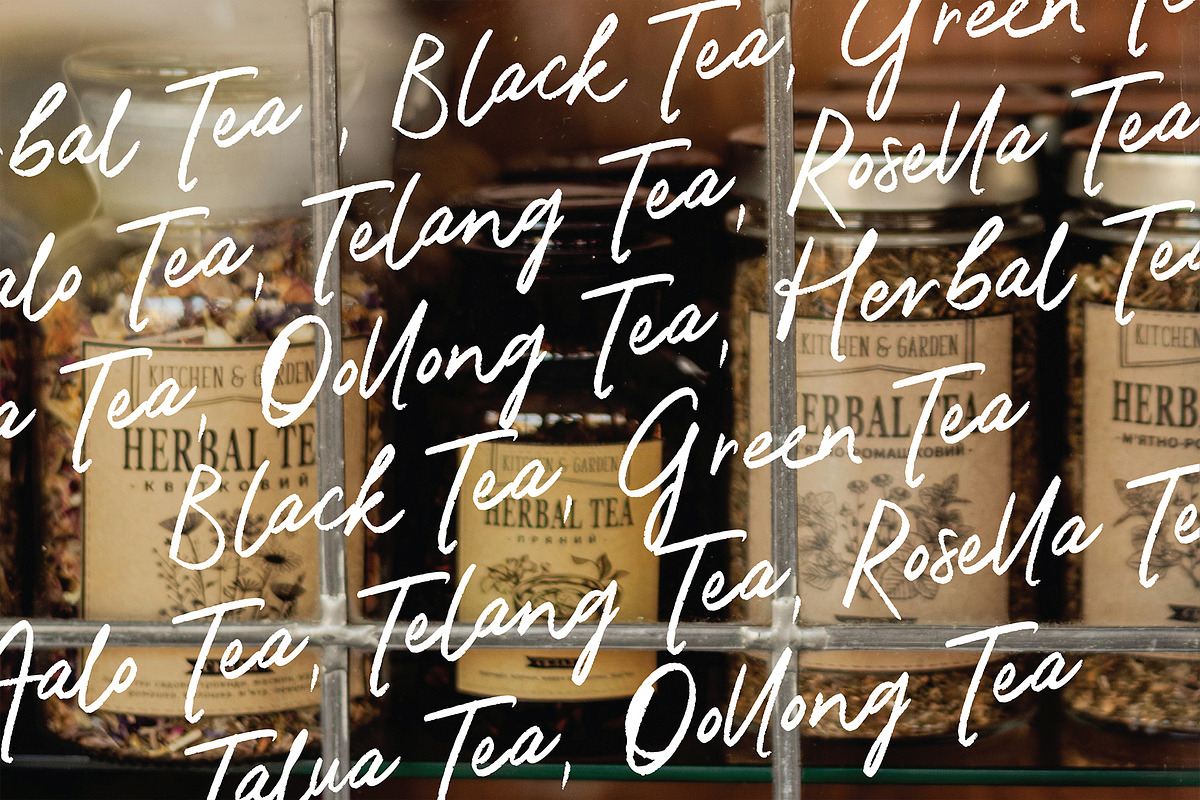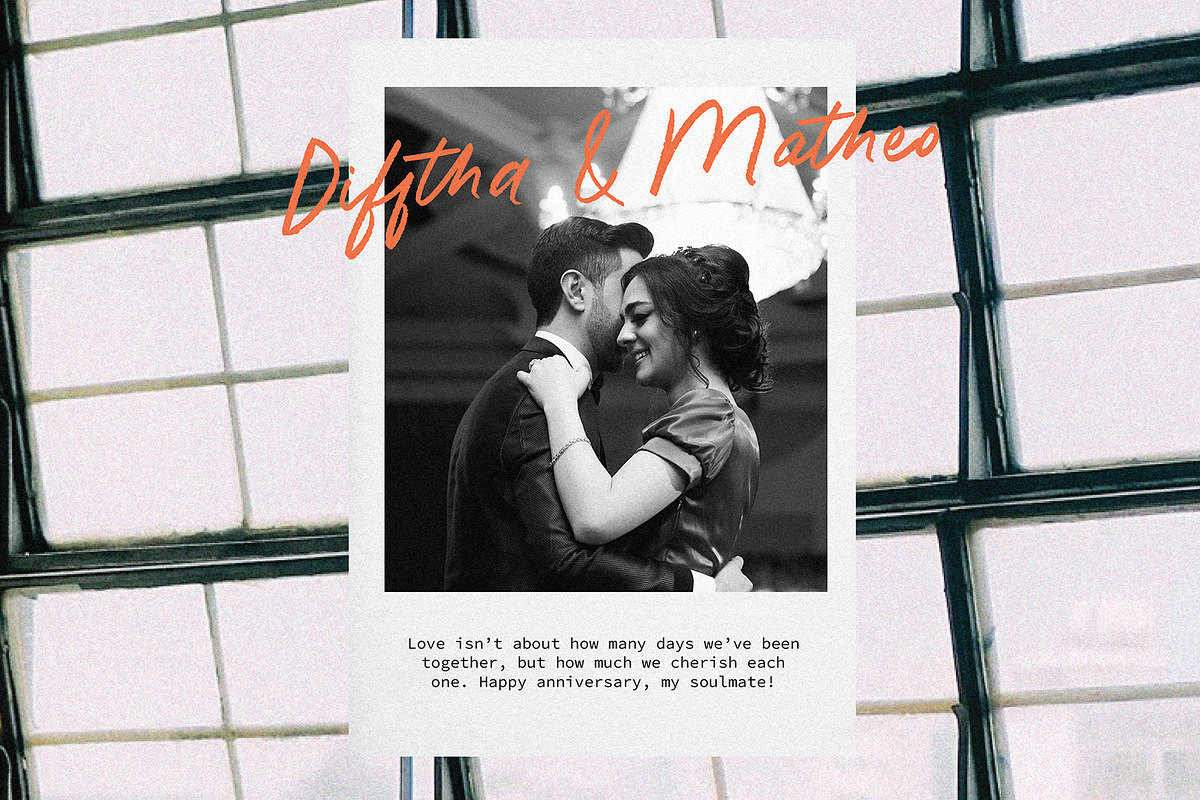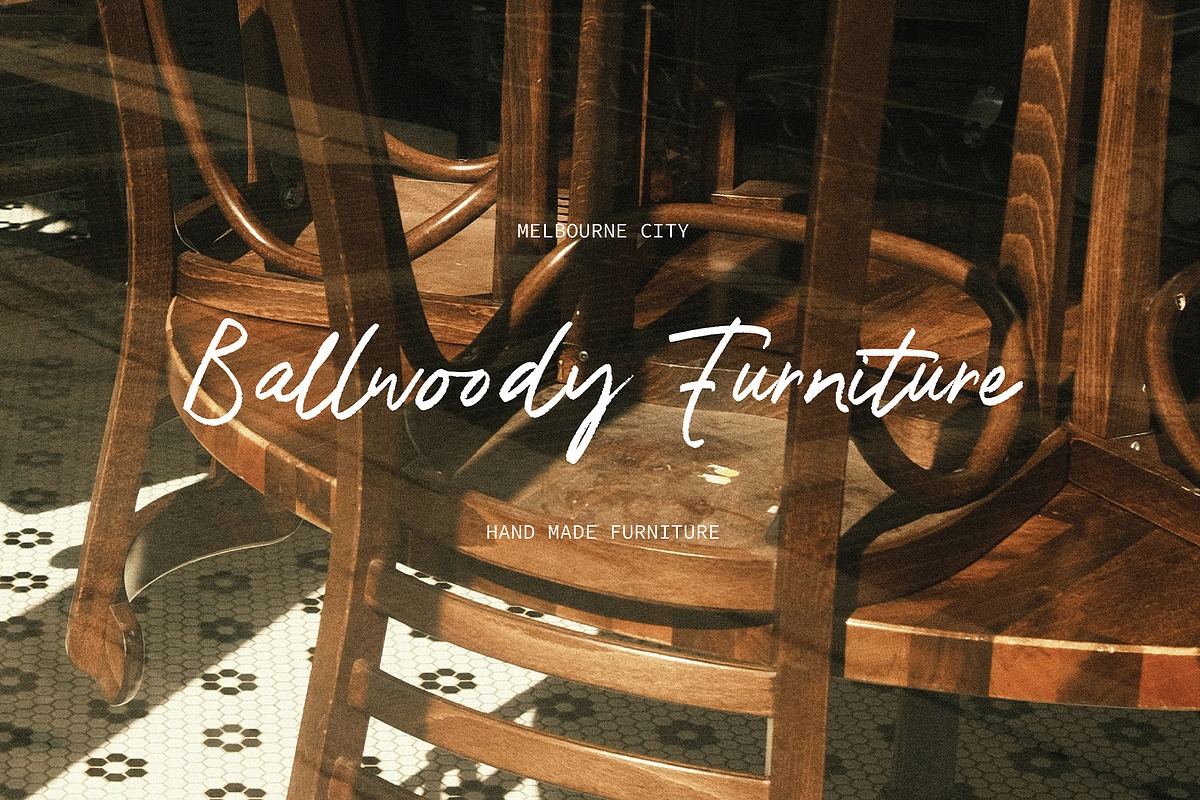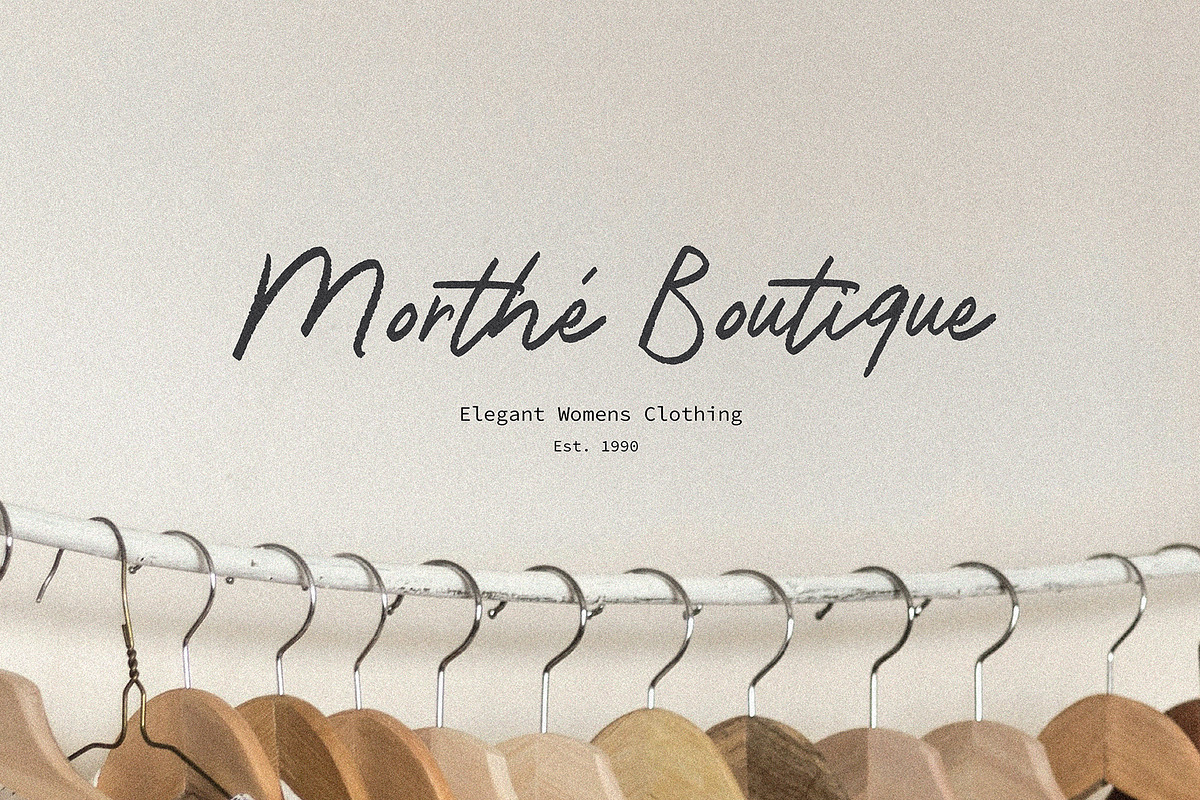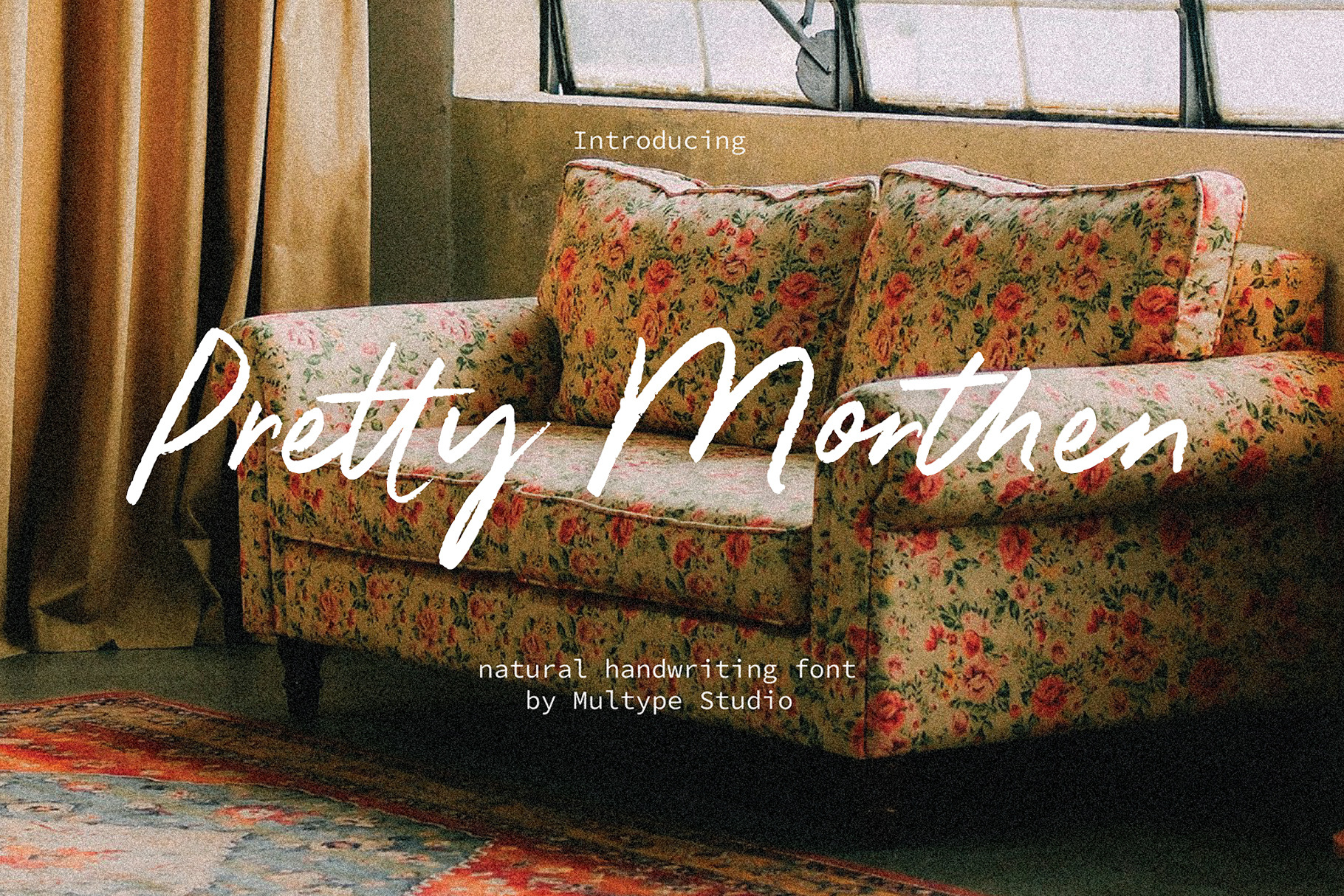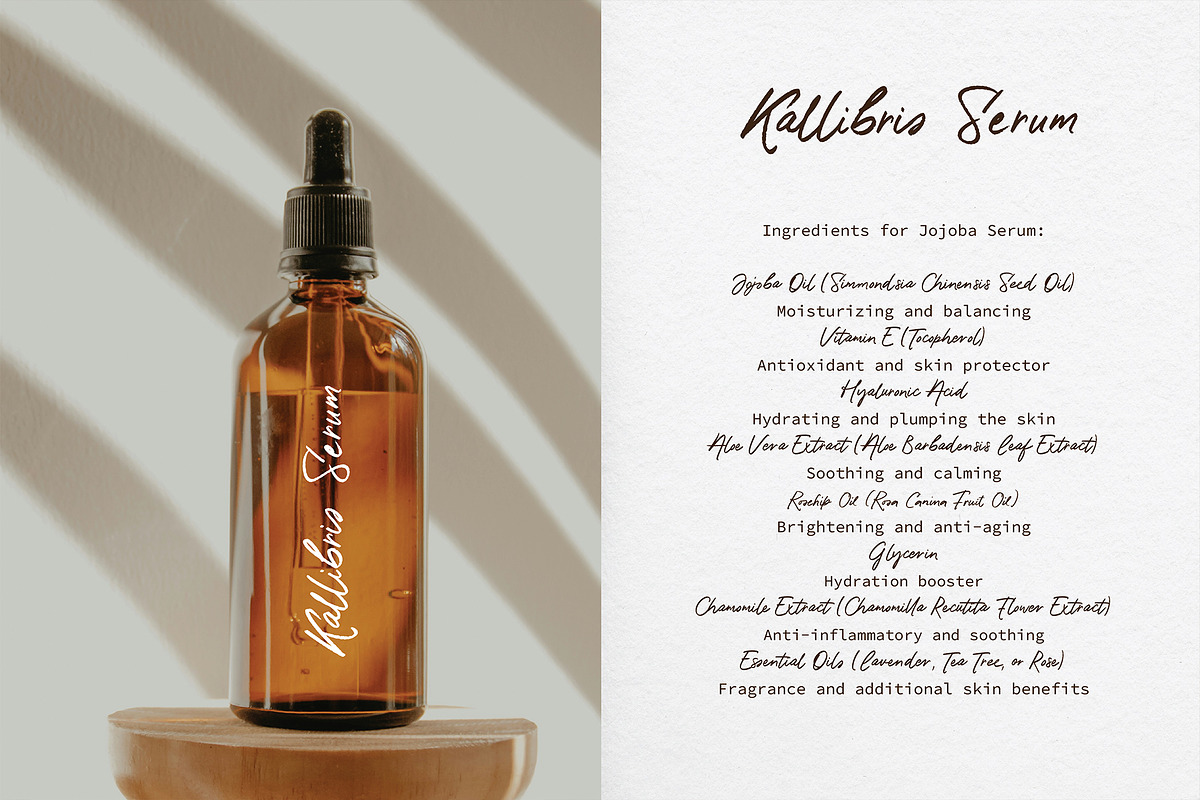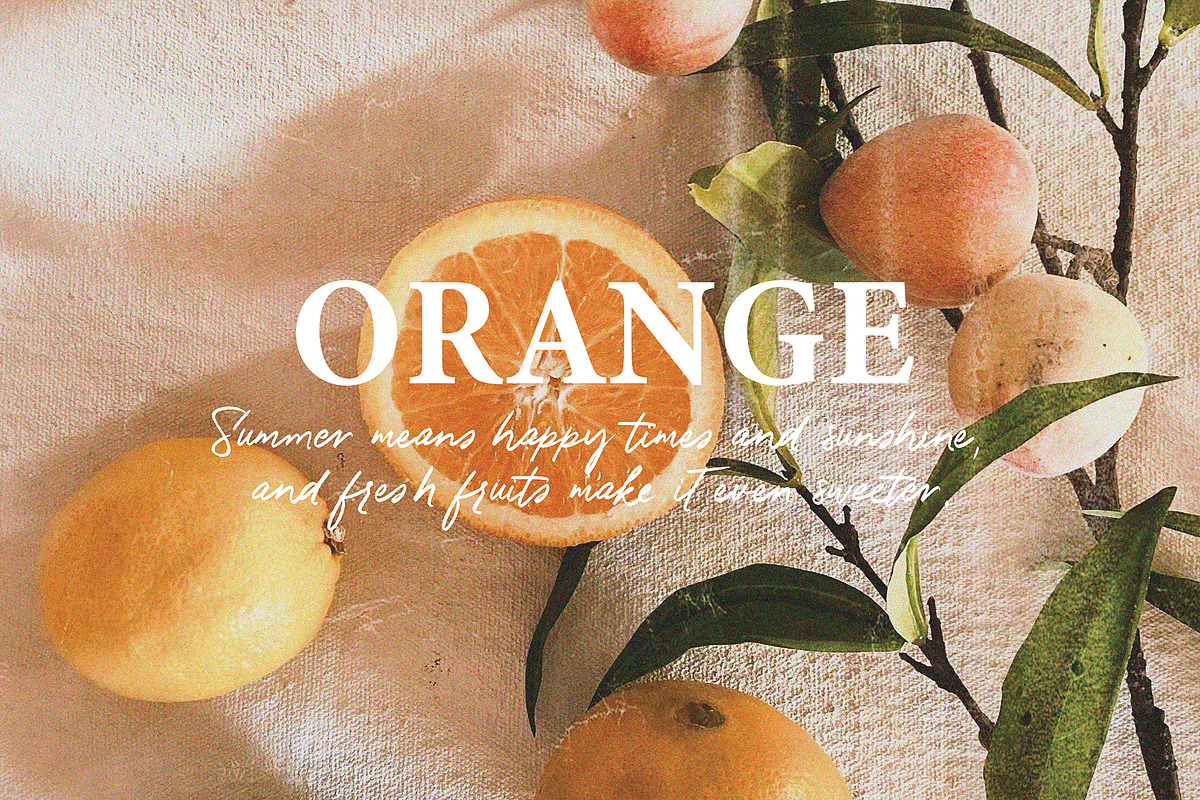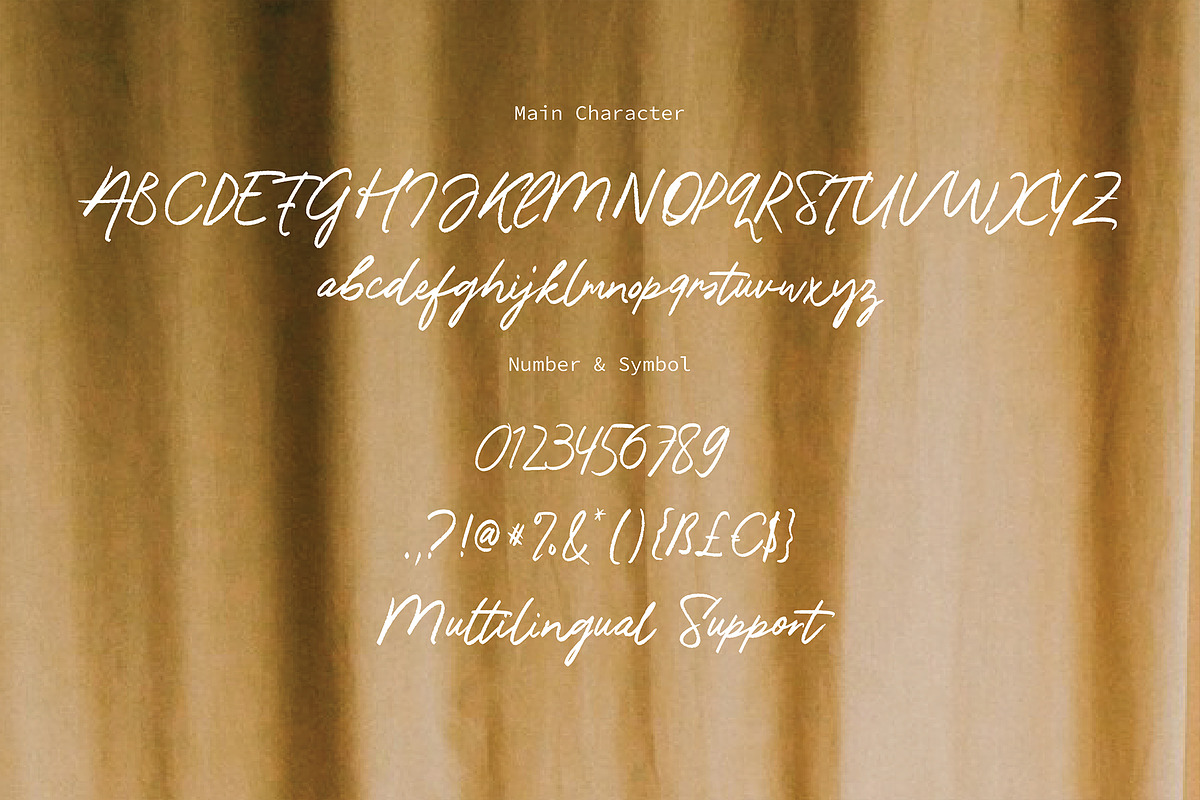
Pretty Morthen Handwriting Fonts
Pretty Morthen is a font with a handwritten style combined with natural letterforms with texture effects. Giving a natural and beautiful impression. This font has many alternative letters and ligatures. With many letter options, making the design even better and not boring.
Pretty Morthen is perfect for photography, watermark, social media posts, advertisements, logos & branding, invitation, product designs, label, stationery, wedding designs, product packaging, special events or anything that need handwriting taste.
- Symbol
- And also support multi language.